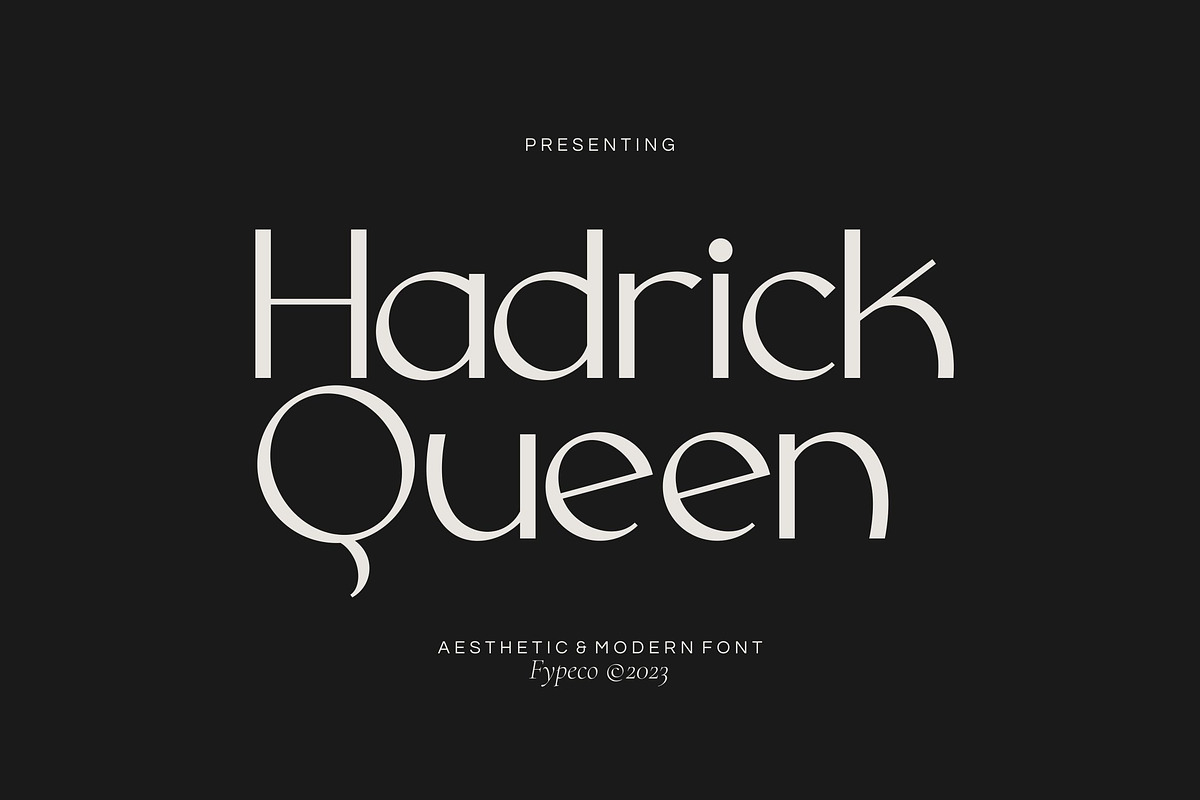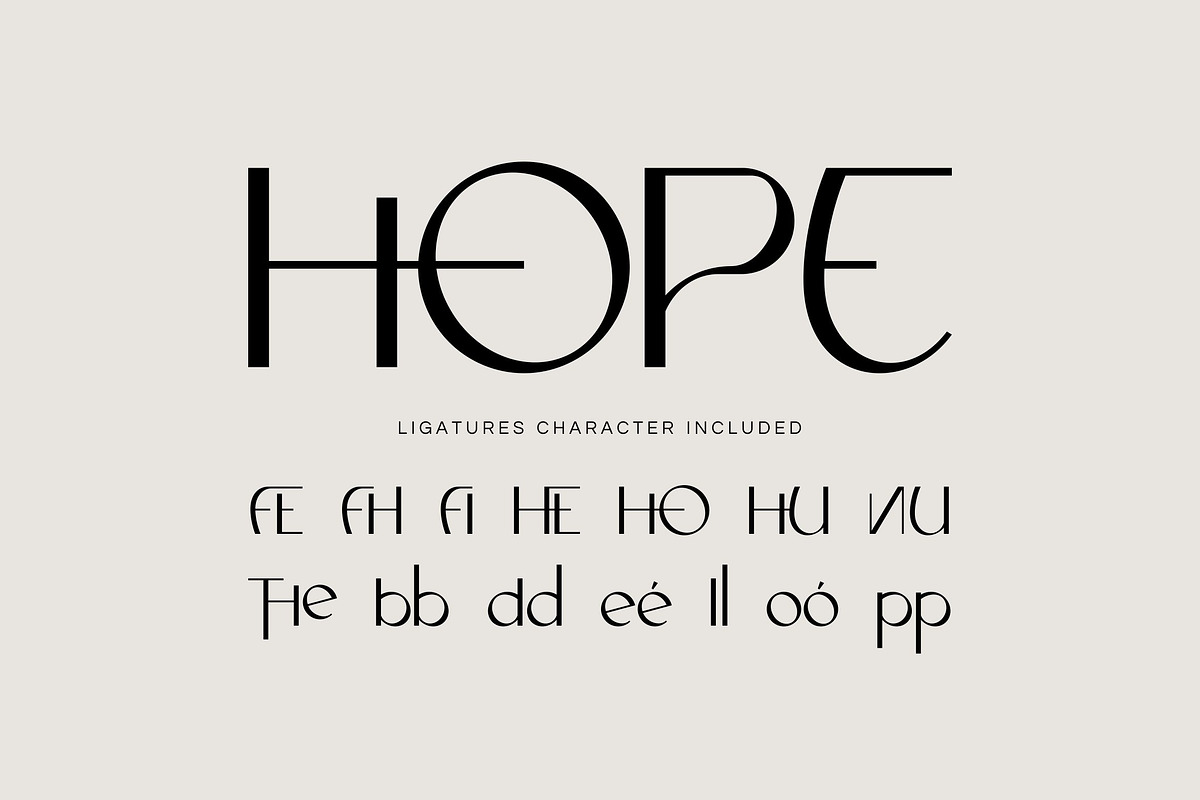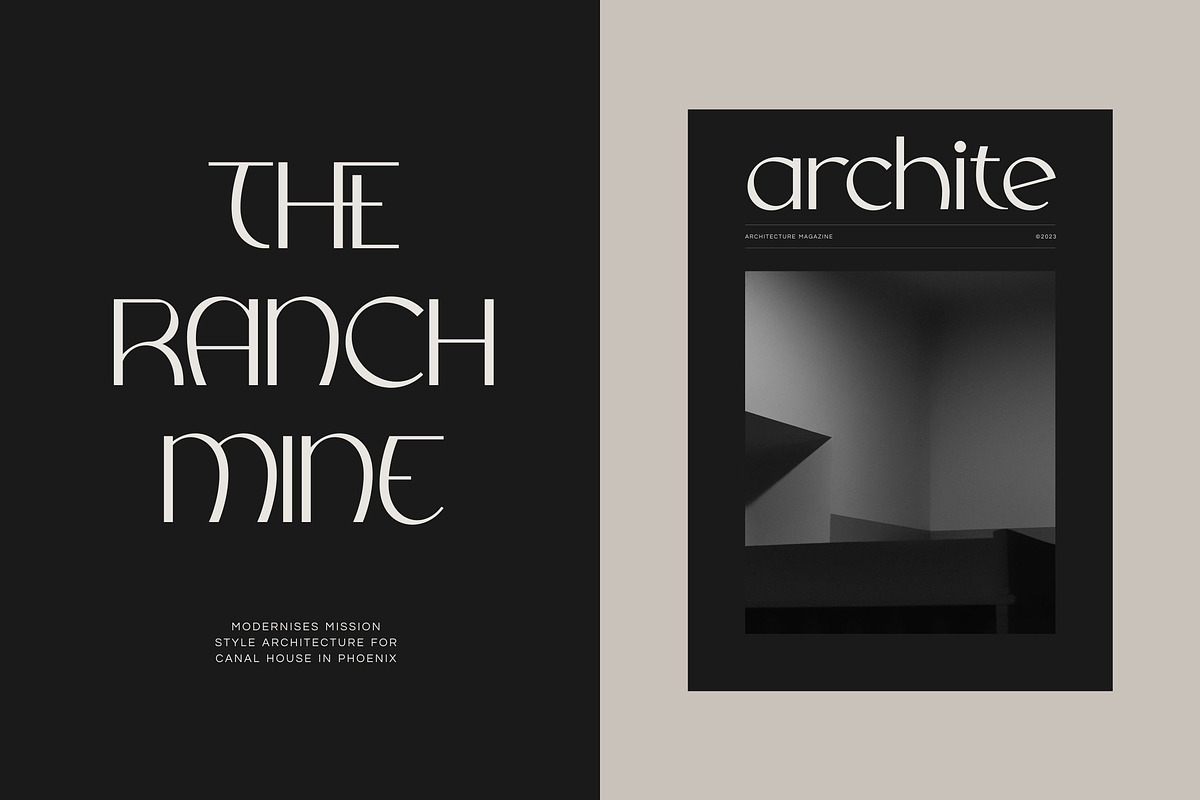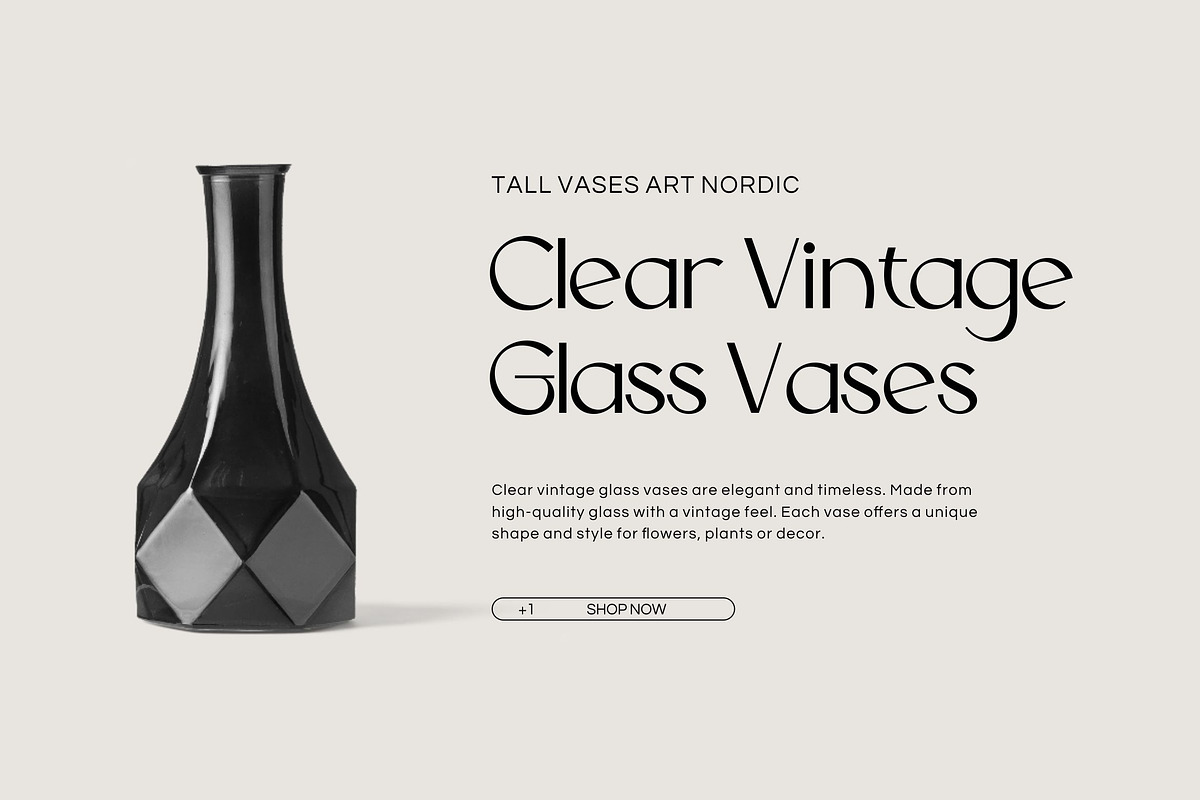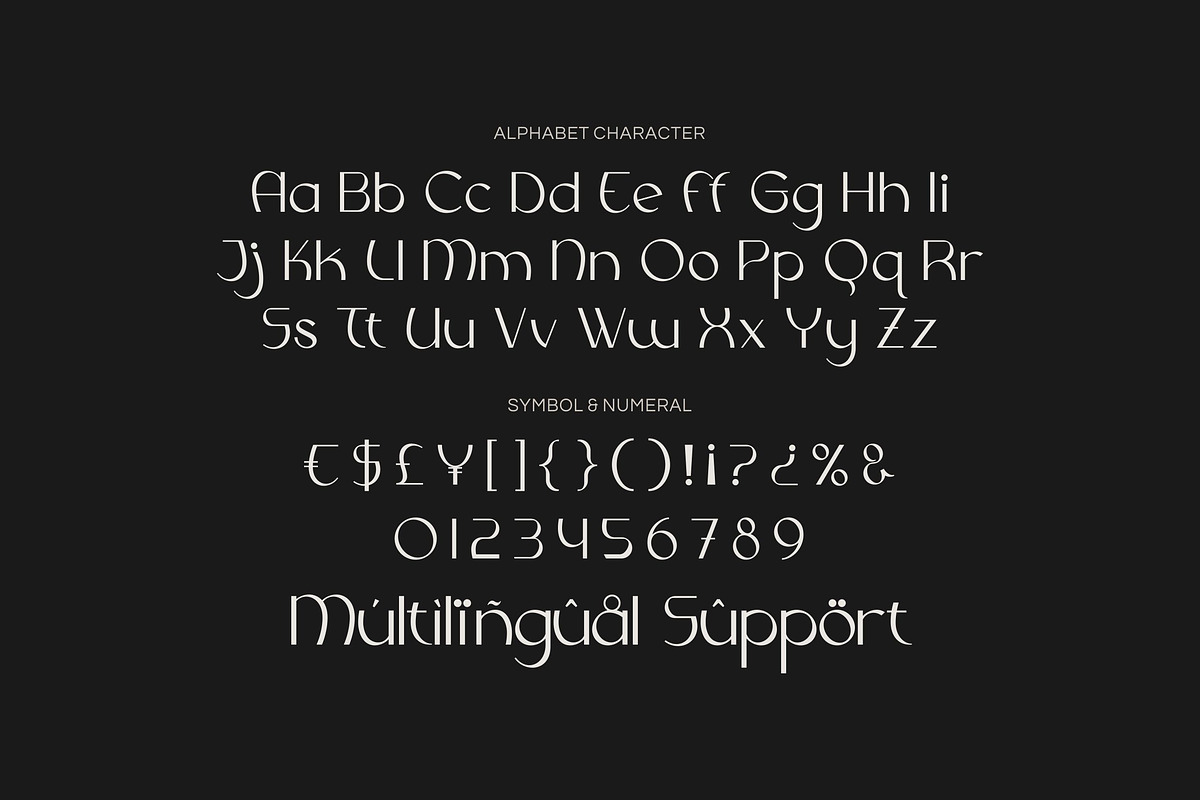
Hadrick Queen - Aesthetic Font
Hadrick Queen is aesthetic & modern font. It has a sophisticated, minimalist and modern font design. This beautiful font has been designed for projects which are suitable for modern & elegant design, such as branding, magazines, logos, headers, and many more.